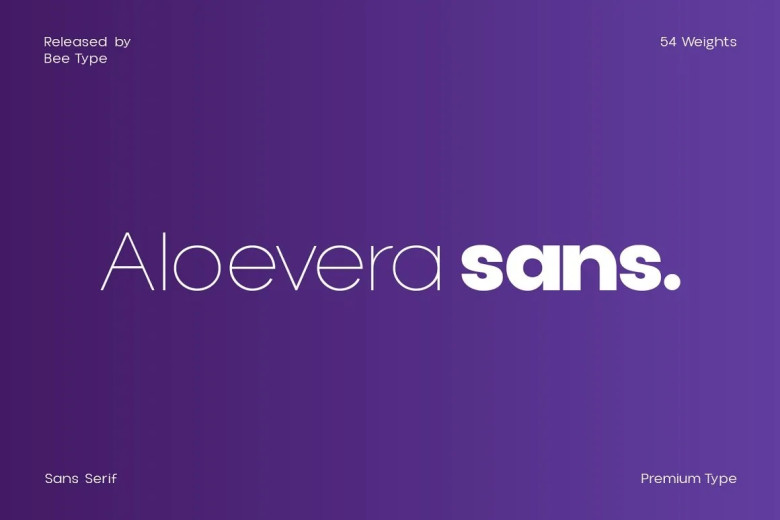
Aloevera Sans Font is a New Elegant Typeface with 54 Variants. It has a reliable, uncompromising style characterised by controlled letterforms and modern touches. It also sets beautifully in logos, magazines, movies and will be perfect for branding, continent headlines, paragraph captions and poster covers. The different weights allow one to experiment with hundreds upon hundreds of applications.
It’s crafted to make a statement, yet not to lose its beauty and readability. It’s clean, minimalist, warmth, quirky, but still meant to be versatile is the Typeface It consists of Nine Weights -Thin, ExtraLight, Light, Regular, Medium, SemiBold, Bold, ExtraBold and Black.
Figures and extended punctuation (200+ Glyphs). Expertly spaced and kerned. Regular, Italic, Condensed and Outline Variants are Included with the font. Thank you for taking the time to give it a look.